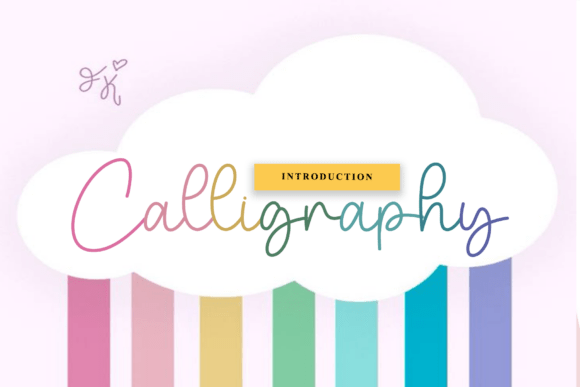
The Beauty of Calligraphy Font: Elevate Your Designs with Timeless Elegance
I’ll never forget the time I was working on a logo design project for a luxury brand. My client wanted something elegant, sophisticated, and eye-catching. I spent hours browsing through font libraries, but nothing seemed to fit the bill. That’s when I stumbled upon Calligraphy Font, and it instantly clicked. The unique, handwritten touch of each letter was exactly what I needed to bring the design to life. In this article, I’ll share with you why Calligraphy Font is a game-changer for designers, crafters, and creative hobbyists.
What Makes Calligraphy Font Special?
Calligraphy Font is a lovely and timeless handwritten font that is perfect for creating stunning logos, branding, and quotes. Every letter has a unique and beautiful touch, which will make your design stand out from the crowd. Here are some things I love about Calligraphy Font:
- ✨ Unique and elegant letterforms that add a touch of sophistication to any design
- ✅ Highly versatile and can be used for a wide range of design projects, from logos to social media graphics
- 💫 Supports OpenType features, glyphs, and stylistic alternates, giving you endless creative possibilities
- 📚 Comes with a wide range of characters, including ligatures, swashes, and alternates
While Calligraphy Font is an amazing addition to any design project, it’s not without its quirks. Here are some things to keep in mind:
- ⚠️ Some letters may be a bit tricky to read, especially at smaller font sizes
- 🤔 May not be the best choice for body text or long paragraphs, as it can be a bit too ornate
- 📊 Limited availability of certain characters, such as currency symbols or emojis
Calligraphy Font was inspired by the art of traditional calligraphy, which dates back to ancient civilizations. The font’s creator was fascinated by the beauty and elegance of handwritten letters and sought to recreate that magic in a digital format. The result is a font that’s both timeless and modern, perfect for designs that need a touch of sophistication.
| Font Name | Calligraphy Font |
| Author | Sansana |
- Q: What is Calligraphy Font?
- A: Calligraphy Font is a lovely and timeless handwritten font that’s perfect for creating stunning logos, branding, and quotes.
- Q: Is Calligraphy Font suitable for body text?
- A: While Calligraphy Font is beautiful, it may not be the best choice for body text or long paragraphs, as it can be a bit too ornate.
- Q: Does Calligraphy Font support OpenType features?
- A: Yes, Calligraphy Font supports OpenType features, glyphs, and stylistic alternates, giving you endless creative possibilities.